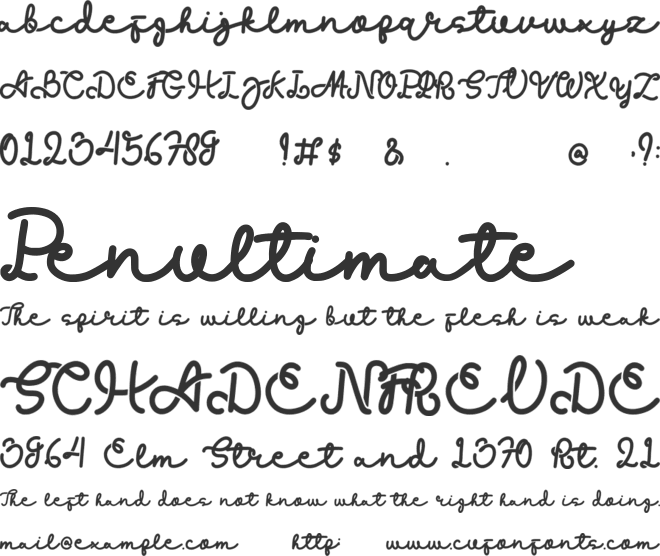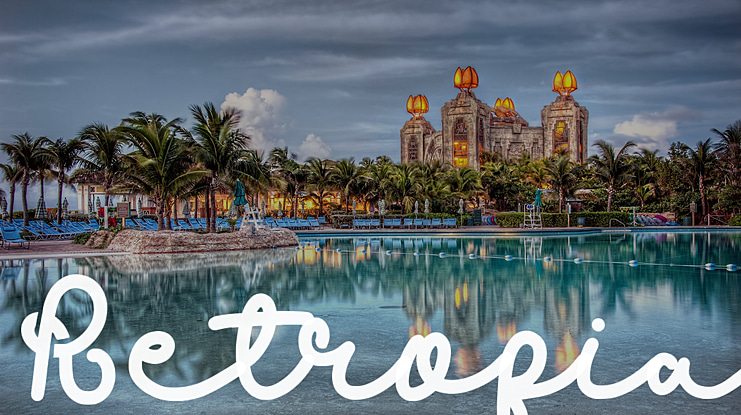
Retropia Font
Retropia Duo is a cool and retro looking duo font (sans serif and script). It is defined by smooth curves and is perfect for fashion branding or editorial designs. Add it confidently to your projects, and you will love the results.